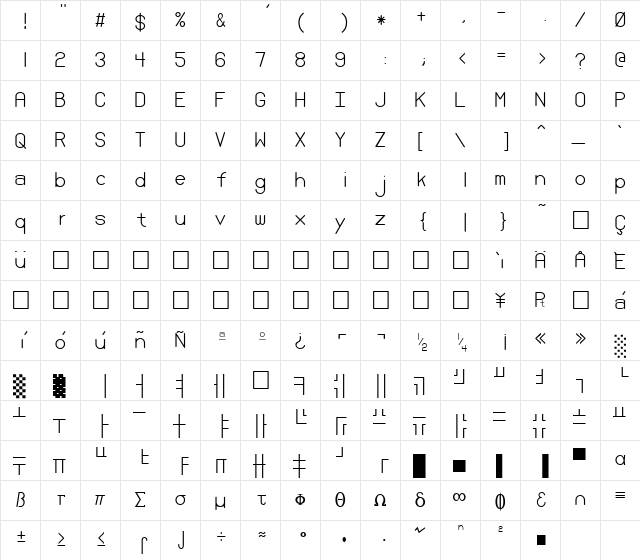
PCPlus 437 TrueType Regular
Design Context for PCPlus 437 TrueType Typeface
PCPlus 437 TrueType takes a measured approach to typography — its balanced proportions and neutral character make it a reliable workhorse for both digital and print work.